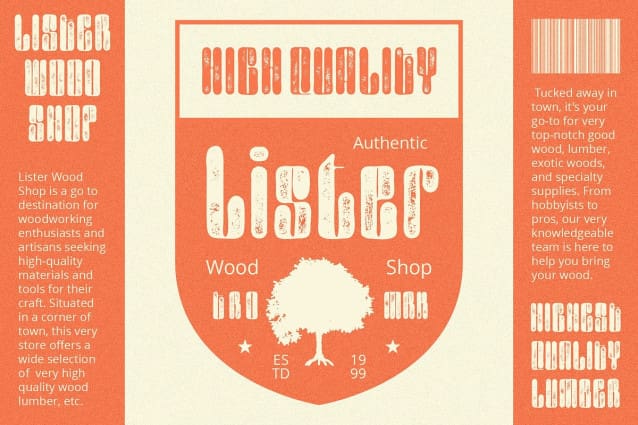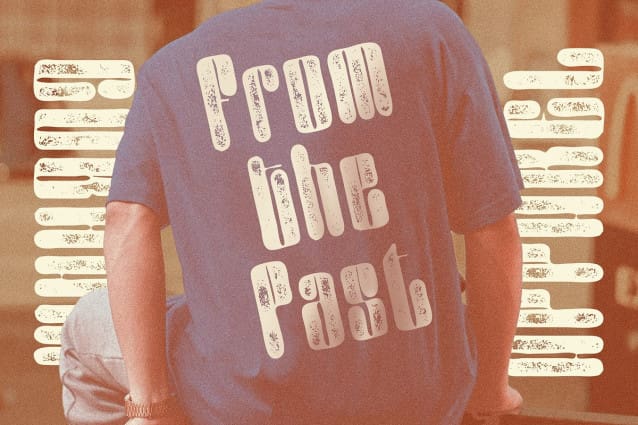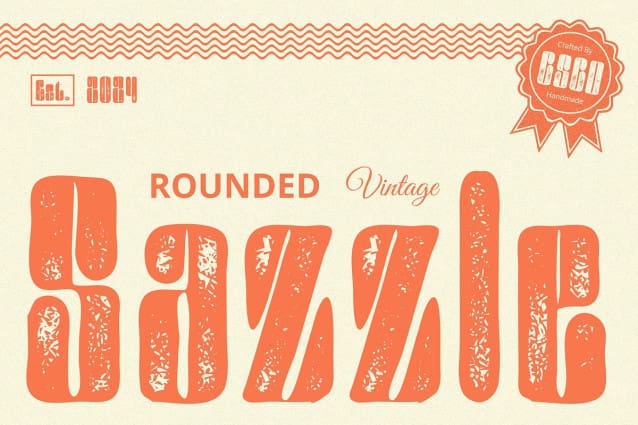
Sazzle Rounded Vintage Font
Sazzle Rounded Vintage Font: Embracing Vintage Charm. Vintage-Inspired Design Sazzle Rounded Vintage embodies the essence of vintage typography with its drawn stamp rough effect. Each character exudes an aura of nostalgia, perfect for evoking a sense of yesteryears.
Subtle White Space Integration Characterized by minimal white space, This font creates a cozy and intimate feel. The subtle use of white space enhances the vintage aesthetic without overpowering the overall design.
Drawn Stamp Rough Effect The drawn stamp rough effect adds texture and character to each letter, enhancing the vintage vibe of This font. It imbues the font with a handcrafted and artisanal feel, reminiscent of traditional printing methods.
Versatile Display Font Ideal for various display purposes, This font offers versatility in application. Whether used in branding, packaging, or editorial design, its vintage charm adds a unique touch to any project.
Vintage Delight This font exudes vintage charm with its drawn stamp rough effect and subtle white space integration. Perfect for a wide range of display projects, this versatile font brings nostalgia and character to any design endeav